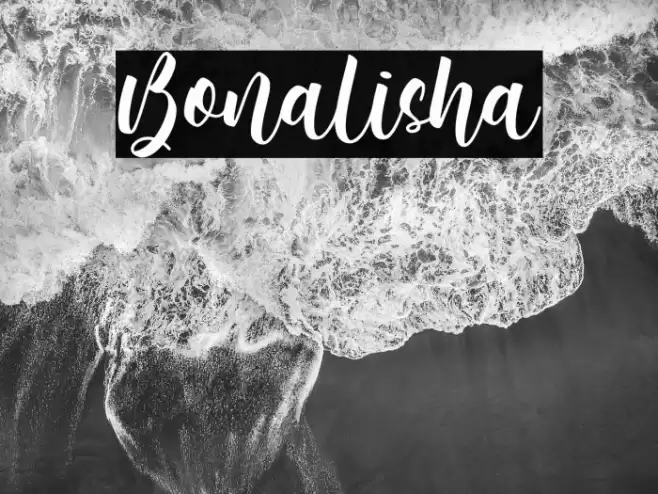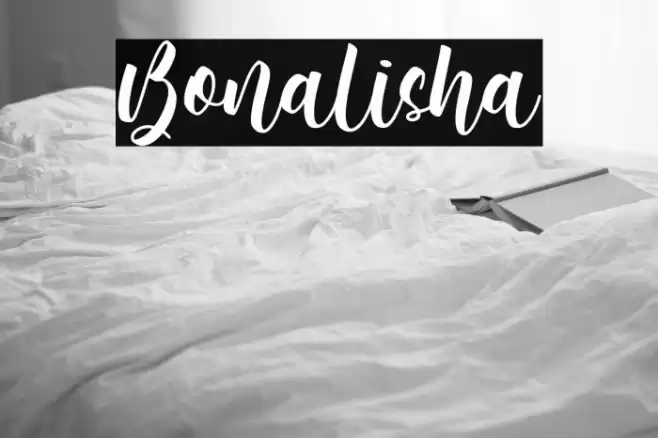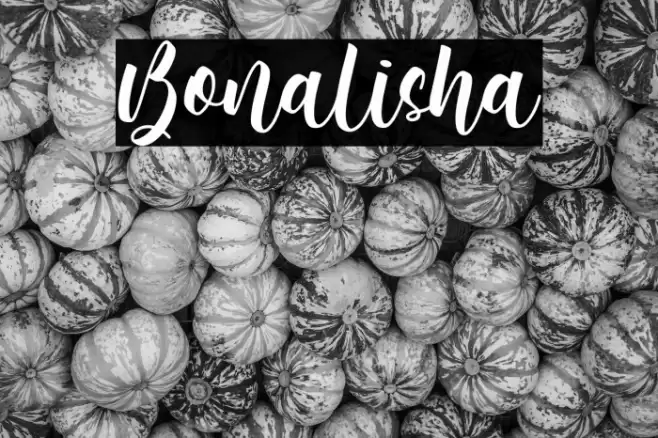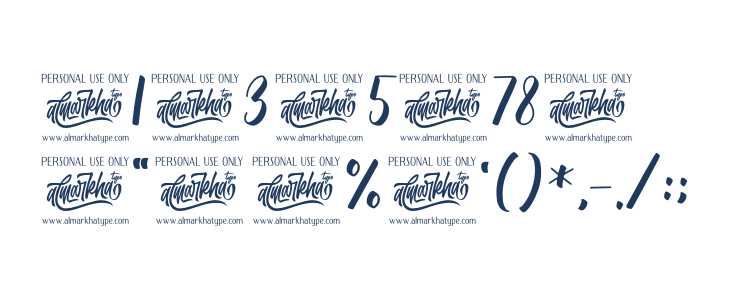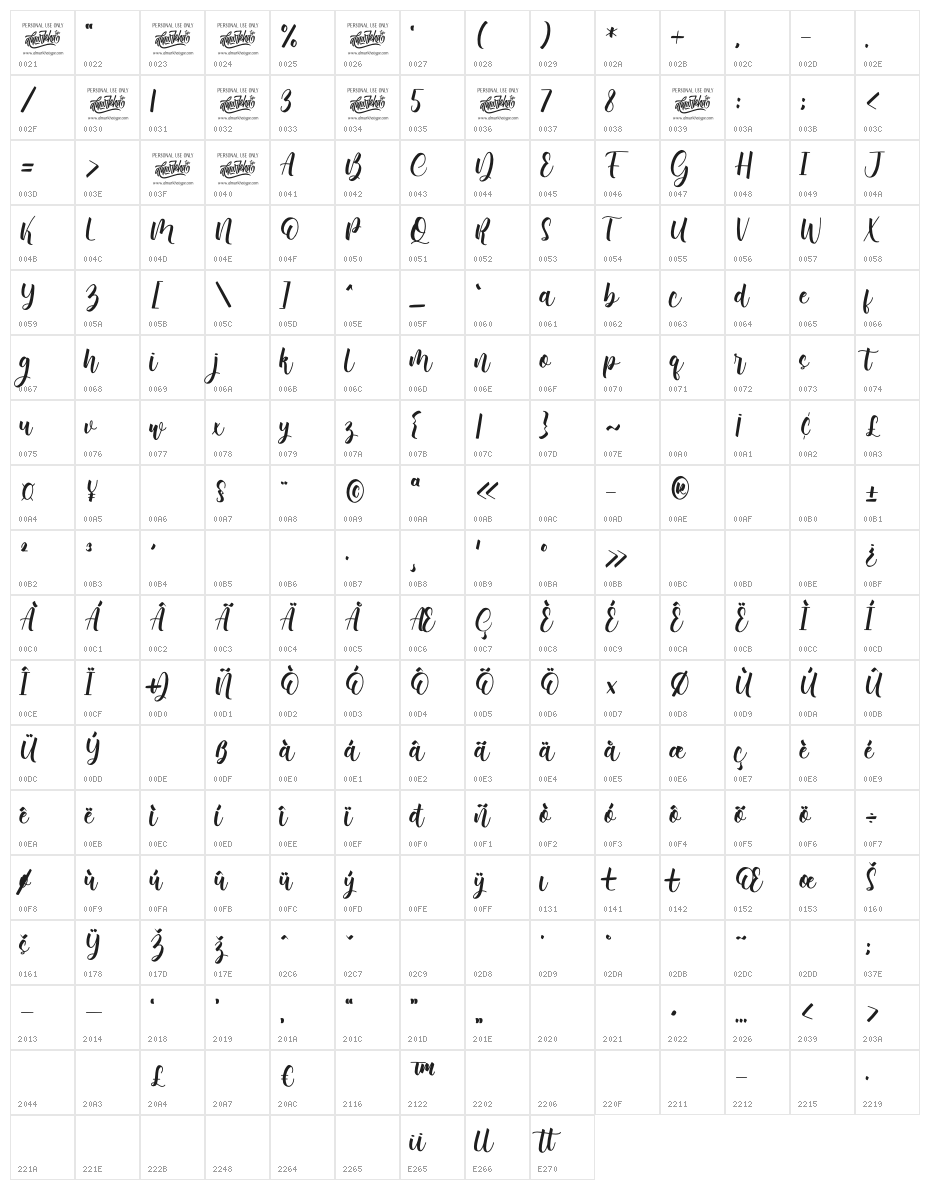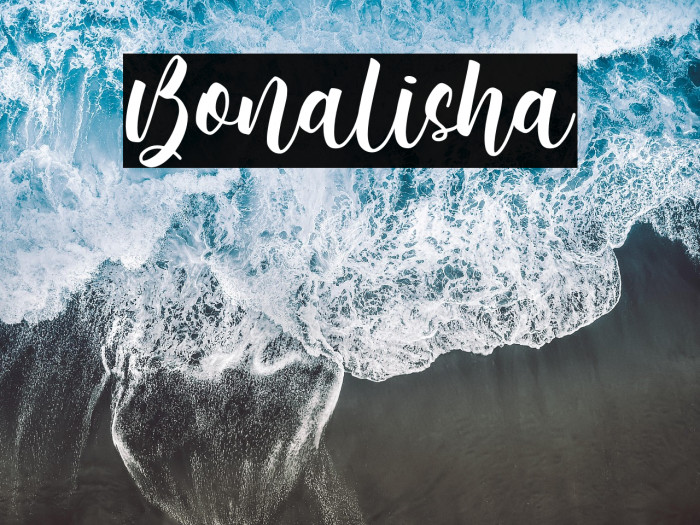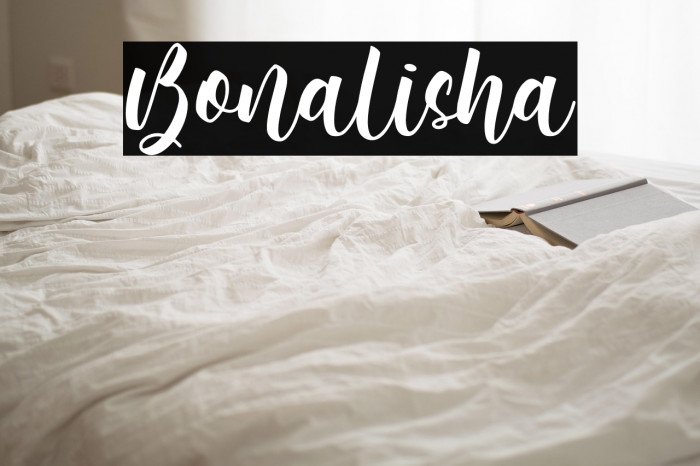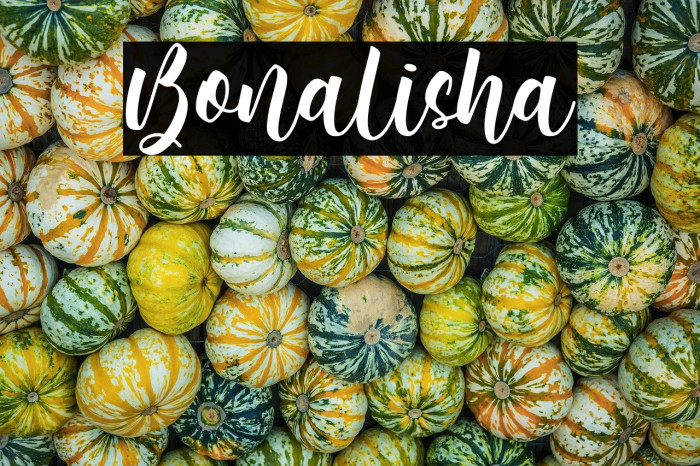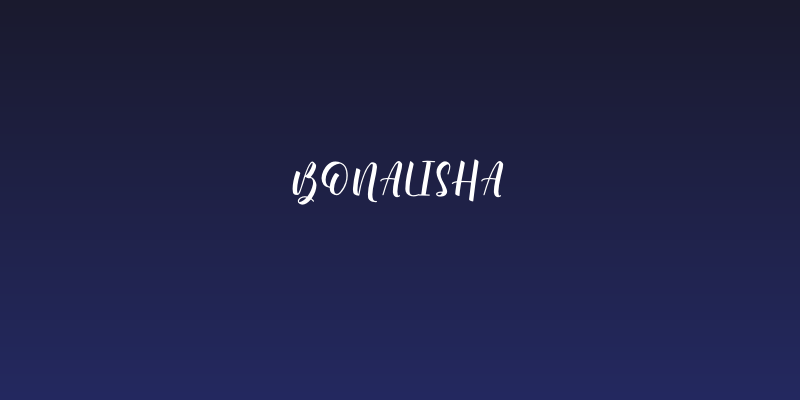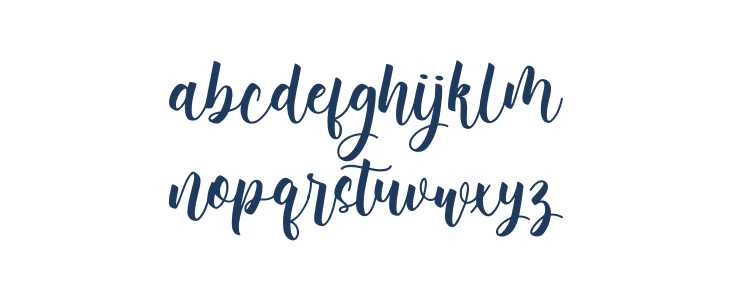
Bonalisha Font
Bonalisha Description
This font features a bold and expressive script style with a hand-drawn appearance. The letters are fluid and dynamic, with a playful yet elegant character. The uppercase letters are slightly more formal, while the lowercase letters exhibit a more casual and flowing nature. The numbers and special characters maintain the same lively and artistic quality, making the font versatile for various design needs. The strokes are thick and consistent, providing a strong visual impact. This font is ideal for projects that require a personal touch or a creative flair.
A bold, expressive script font with a hand-drawn, artistic style from Uncategorized fonts.
- Proposed Projects: Ideal for branding, invitations, greeting cards, and creative design projects.
- Use Case: Logos, Headlines, Invitations